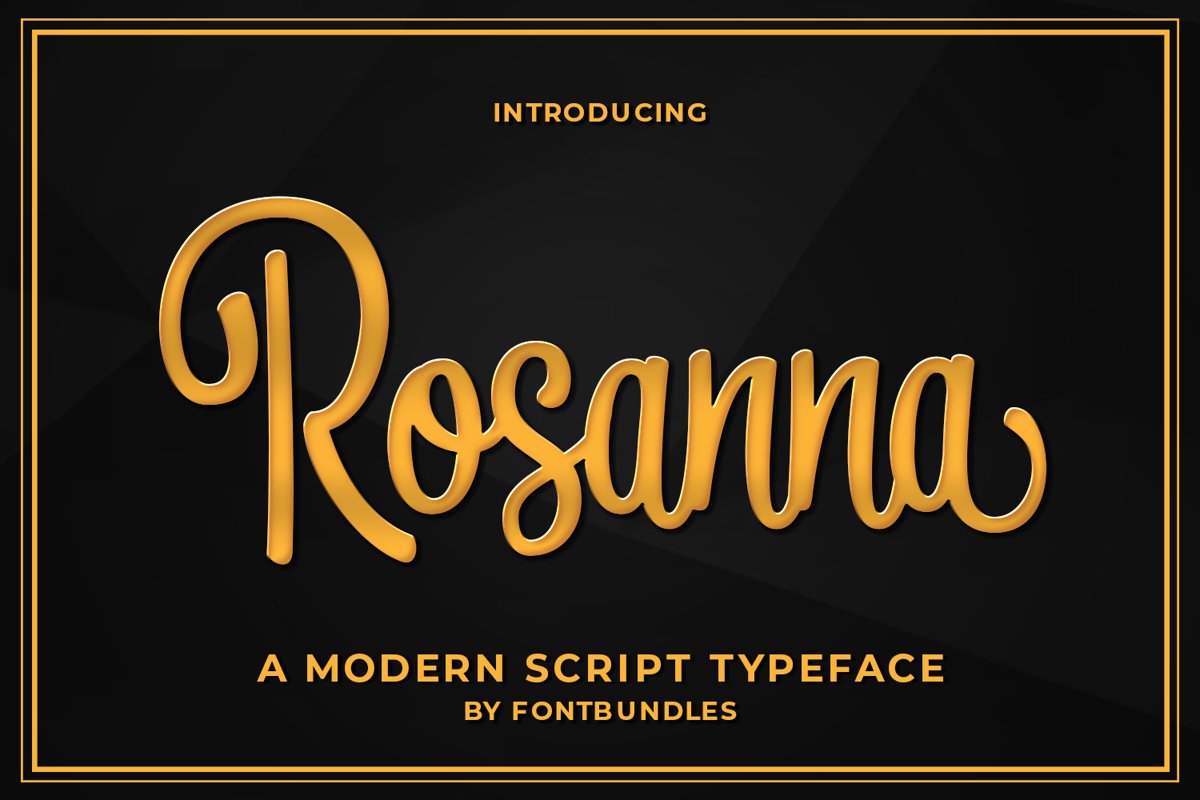
Rosanna is a Modern Script typeface. Perfect for logo, branding, letters, wedding needs, wedding invitation, wedding card, greeting card, packaging, tittle, and many more.